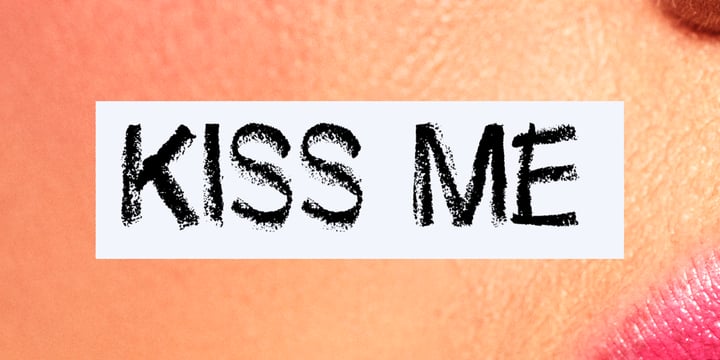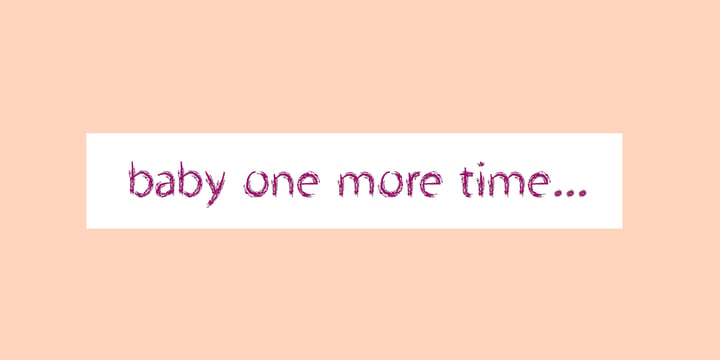
The Divine Font Bundle
Introducing The Divine Font Bundle: a collection of two premium, feminine typefaces designed to elevate your creative projects. Perfect for makeup, beauty, cosmetics, skincare, TikTok, social media marketing, and personal branding, these fonts are crafted to empower and inspire. Make a lasting impression with your next design—purchase now and leave a touch of elegance and impact on every creation.